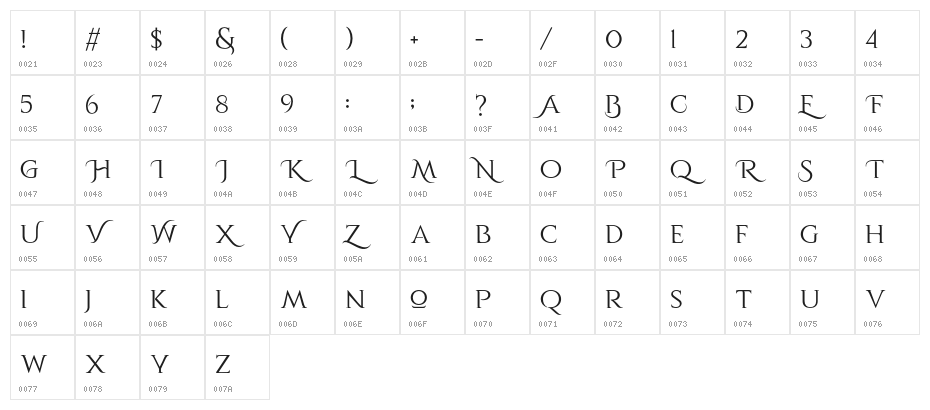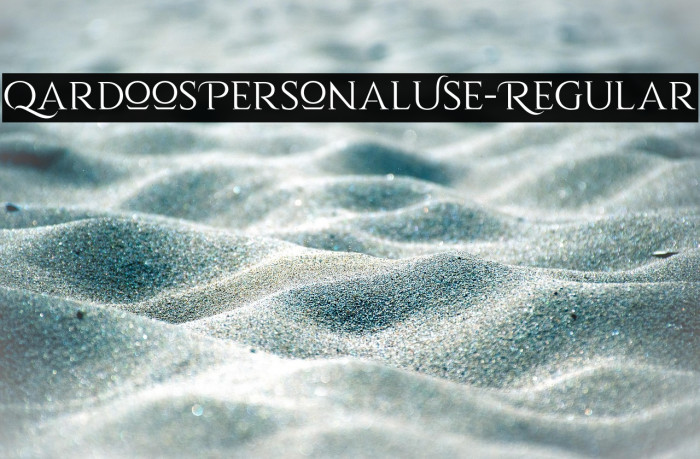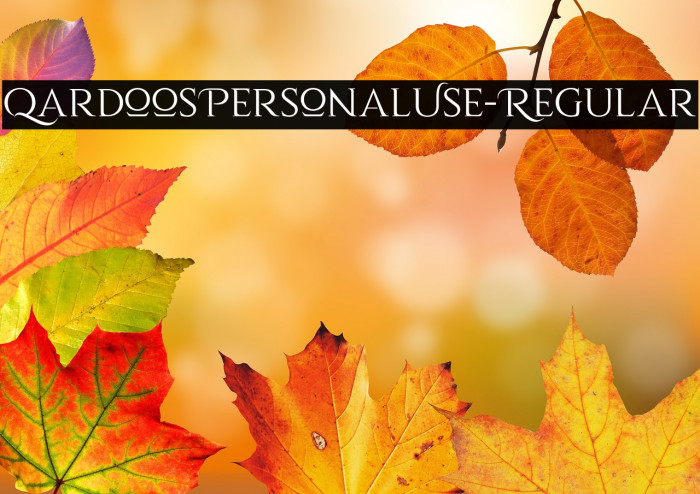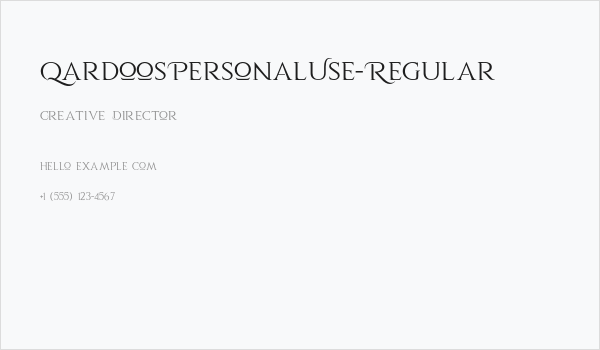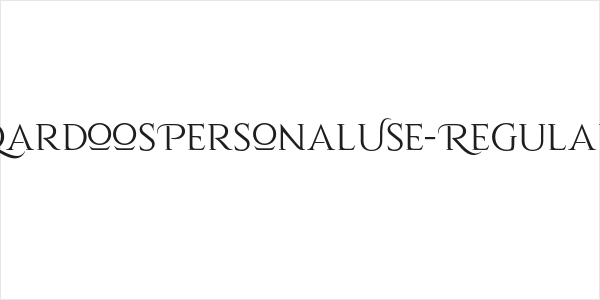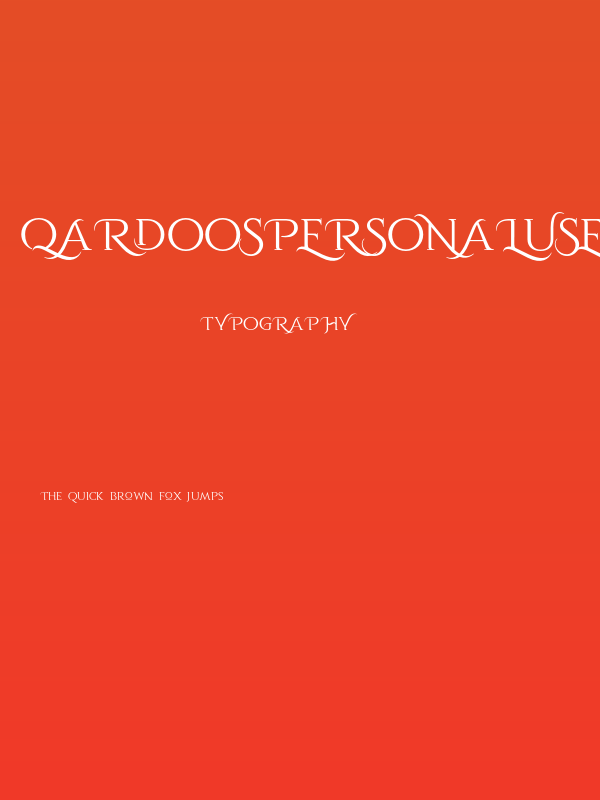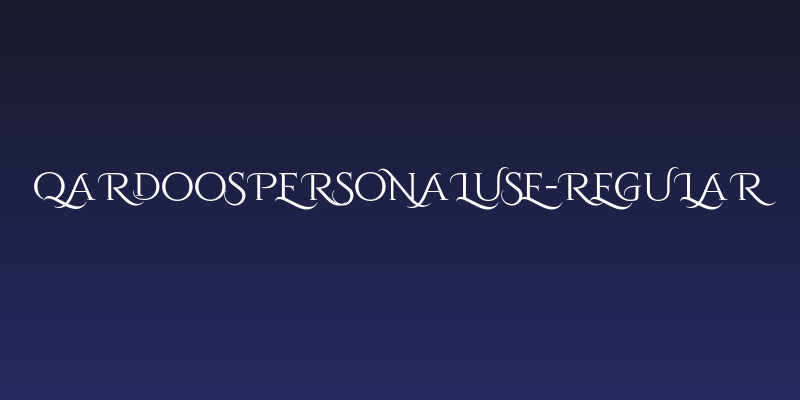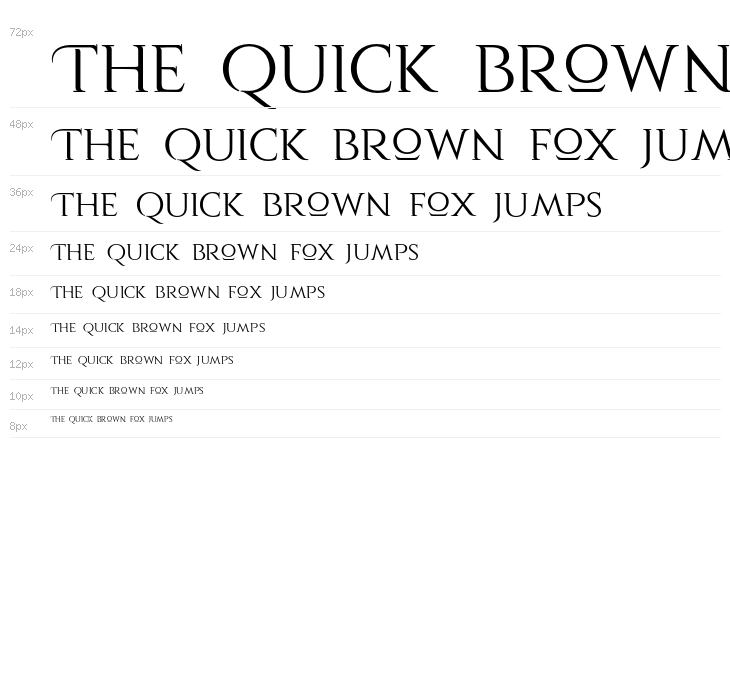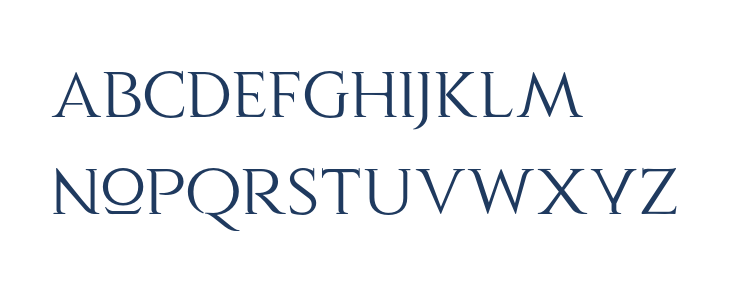
QardoosPersonalUse-Regular Font
QardoosPersonalUse-Regular Description
This font features a unique blend of classic and modern elements, characterized by its elegant and flowing letterforms. The uppercase letters exhibit a distinct flair with extended serifs and subtle curves, giving them a sophisticated and artistic appearance. The lowercase letters maintain a consistent style, complementing the uppercase with their graceful lines and balanced proportions. The numerals are clear and legible, designed to match the overall aesthetic of the font. Special characters are thoughtfully crafted, adding to the font's versatility. This typeface is ideal for projects that require a touch of elegance and creativity.